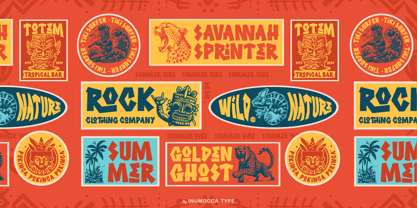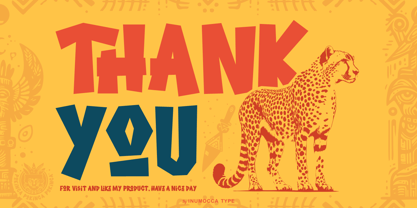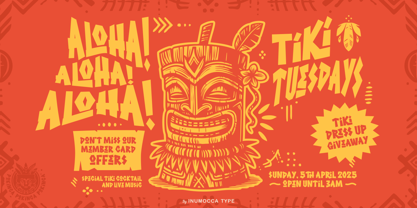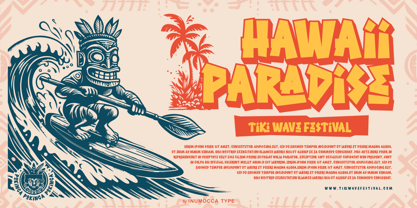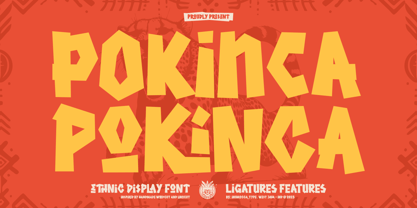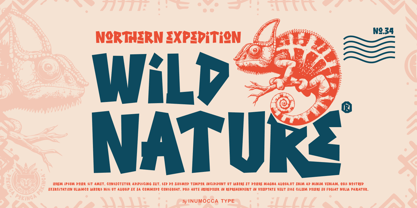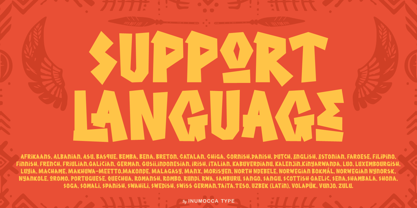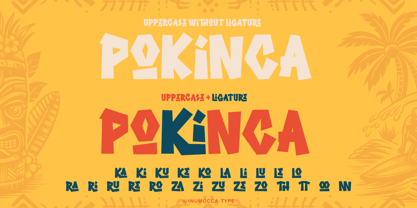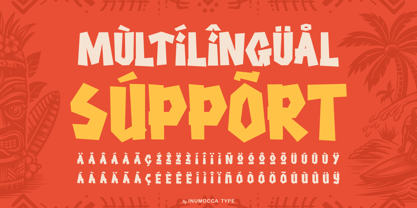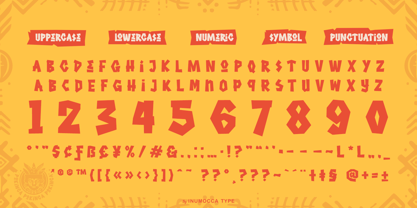
Pokinca
by Inumocca
The Pokinca Font Family was designed by Inu Mocca and published by Inumocca. Pokinca contains 1 styles. More about this family
Pokinca is Ethnic Display Font, inspired by handmade woodcut or linocut with thick and strong lines that create confident character.
the distressed handdrawn look of this ethnic font adds a touch of authenticity to any design by traditional art.
i present it in shape and characteristic for make Profesional Your Logos, Lettering, Branding, Headline, Badges, Body of text,
packaging design,because visual appeal is essential.
- Unique glyphs
- Multilingual Characters
- UPPERCASE
- Lowercase
- Numeric
- Symbol
- Punctuation Character
- Ligatures
Designers: Inu Mocca
Foundry: Inumocca